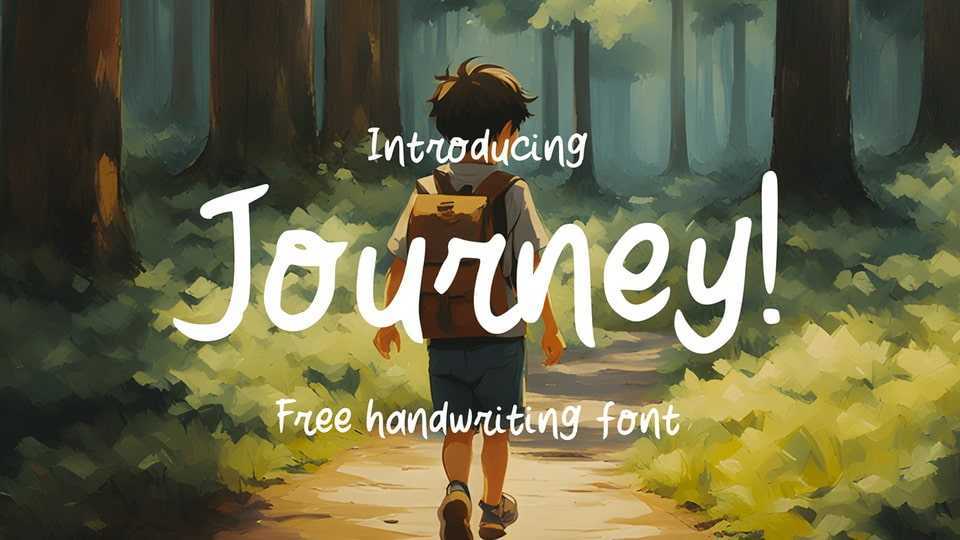
Download Jorney font, a delightful and organic handwritten typeface that radiates playful vibes with every stroke. Jorney font is perfect for projects that demand a touch of whimsy and a genuine, handcrafted feel.
Designer: After Type